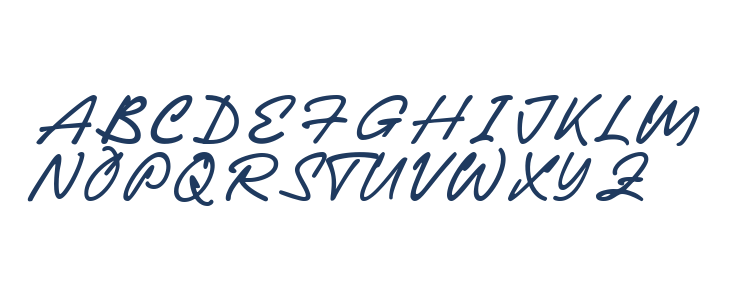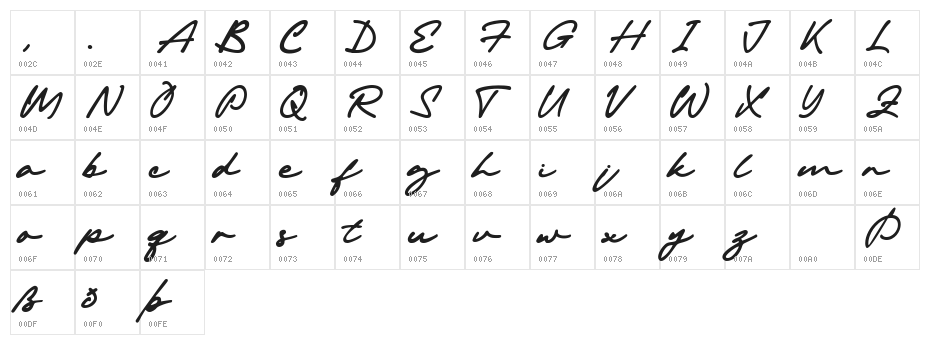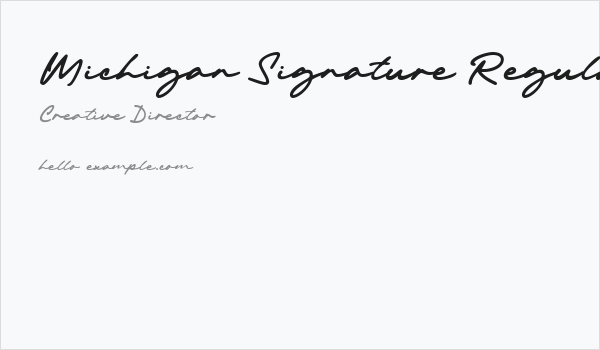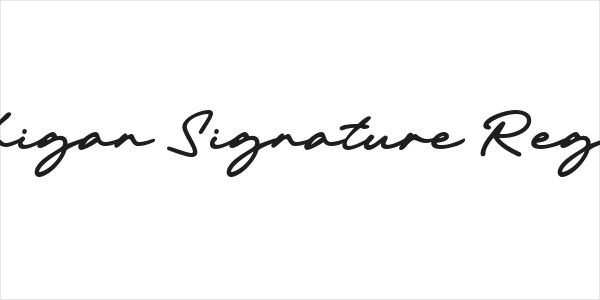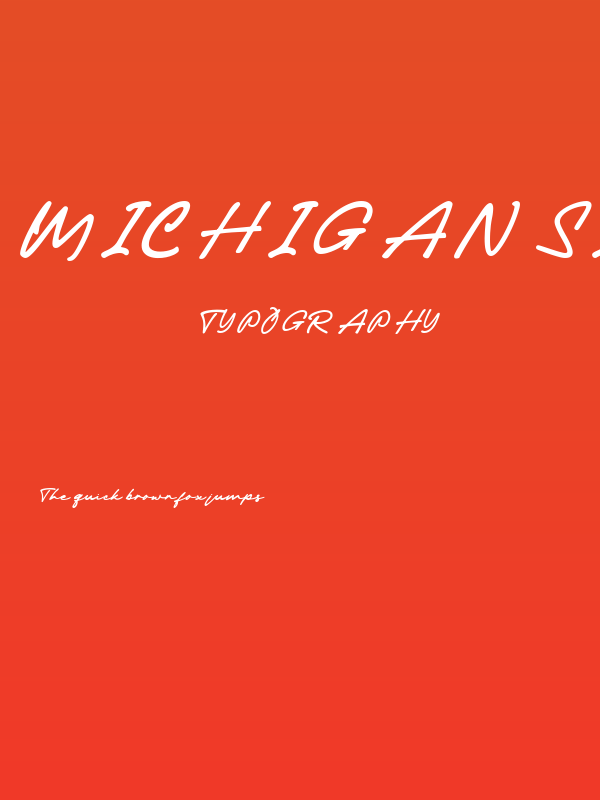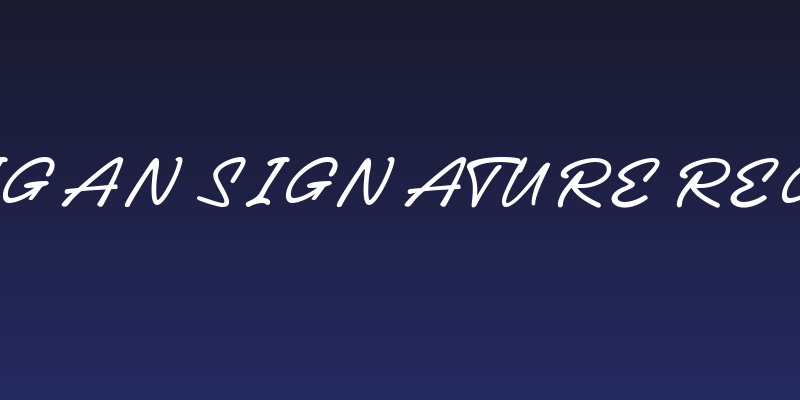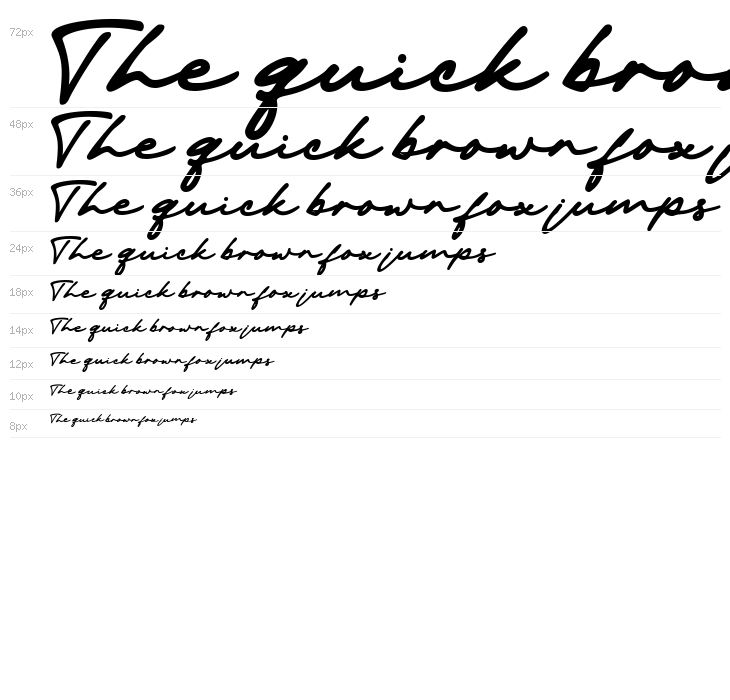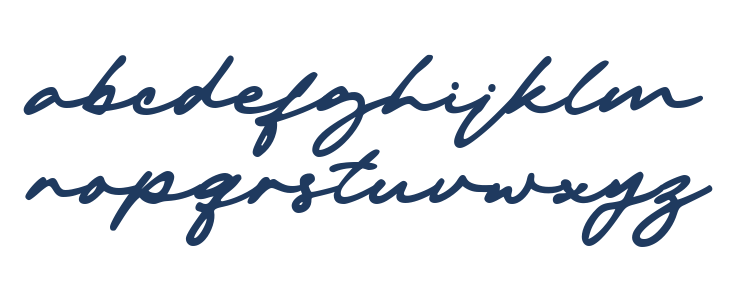
Michigan Signature Regular Font
Michigan Signature Regular Description
A flowing, cursive script font with a handwritten appearance, featuring connected letterforms and a natural, organic rhythm. The strokes are moderately thick with slight variations, giving it an authentic signature-like feel.
| Overall Style | Handwritten, Modern, Decorative |
| Use Case | Logos, Signatures, Invitations, Personal branding |
| Proposed Projects | Personal branding, invitations, greeting cards, logos, social media graphics. |